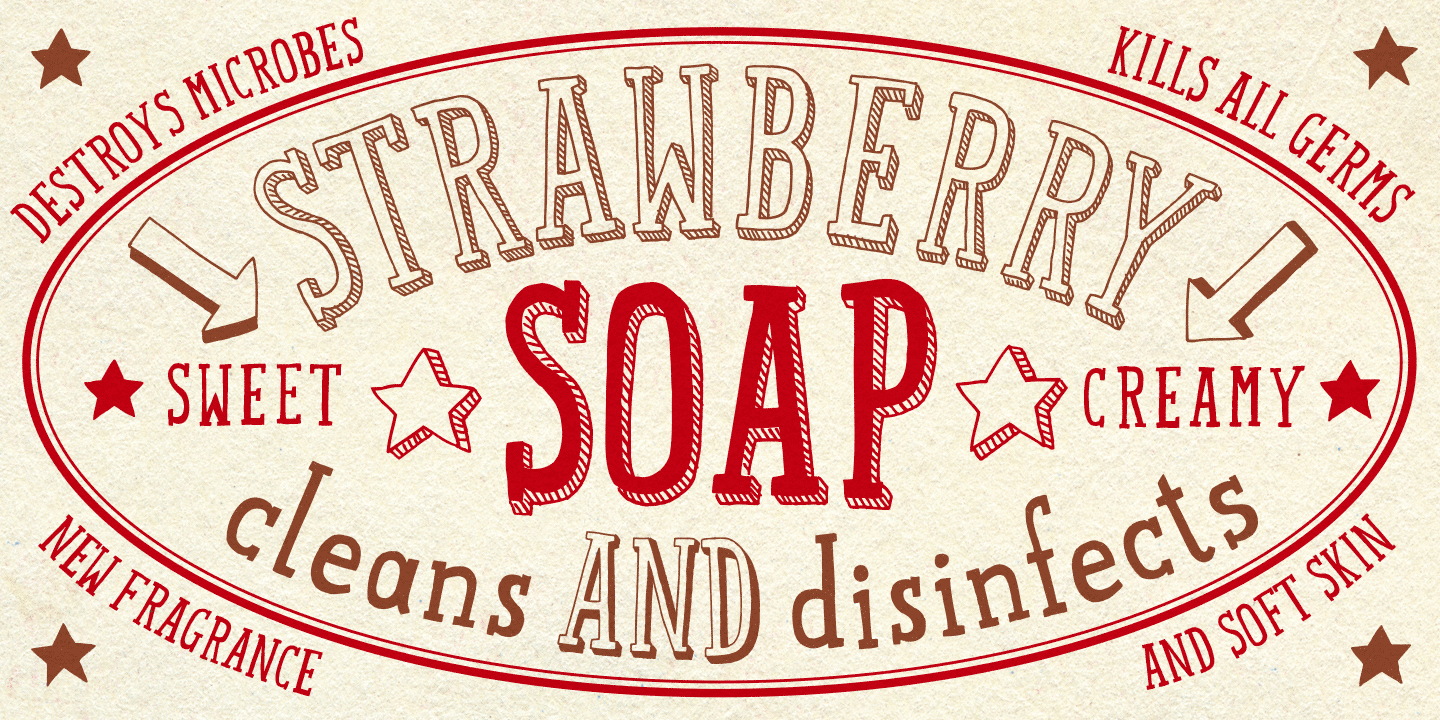
Mr Lucky Font is perfect for casino gaming branding, lottery ticket designs, gambling entertainment venues, Las Vegas-style promotions, fortune-telling businesses, lucky charm retailers, vintage slot machine graphics, bingo hall signage, raffle event marketing, sweepstakes campaigns, game show productions, and charming good luck themed materials.
This font is exciting because it radiates the irresistible charm and optimistic confidence of someone who always lands on their feet, featuring boldly charismatic letterforms that pulse with the same magnetic appeal and fortunate energy found in the most successful gamblers who seem to have lady luck permanently stationed at their shoulder, turning every risky venture into another spectacular win. The confidently stylish character design embodies both the sophisticated charm of a professional card player and the infectious optimism of someone who genuinely believes that good things happen to those who dare to take chances, creating typography that feels both lucky and trustworthy. Each letter radiates the kind of winning personality and positive energy that transforms ordinary text into declarations of confidence and invitations to join the fortunate few who know how to make their own luck.
The Mr Lucky Font family includes regular and bold weights with complete character sets featuring lucky-themed numerals, fortunate punctuation marks, and decorative elements inspired by playing cards, dice, horseshoes, four-leaf clovers, and classic gambling imagery. Advanced versions may offer additional stylistic variants with enhanced lucky effects, alternate characters that create winning combinations, and charming ornaments that celebrate the spirit of good fortune and positive thinking.
Whether you're developing gaming entertainment branding, creating luck-themed promotional materials, or designing optimistic lifestyle content, Mr Lucky Font Free Download provides the charming confidence and fortunate appeal your project needs to attract audiences who believe in the power of positive thinking and the magic of good luck. This typeface transforms ordinary text into winning expressions that celebrate both the excitement of taking chances and the reward of maintaining an optimistic outlook. The font's fortunate character makes it ideal for brands and events that promote positive outcomes and lucky experiences. Gaming enthusiasts and optimistic marketers will love how this font brings authentic lucky charm to their work with its genuinely charismatic and fortunately confident character that attracts good fortune.